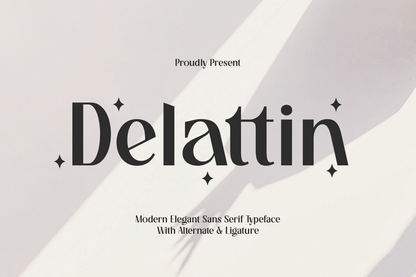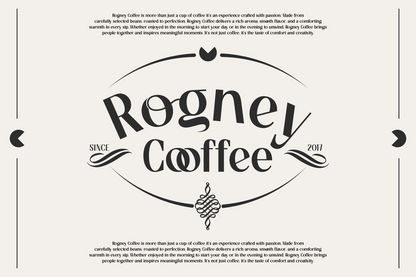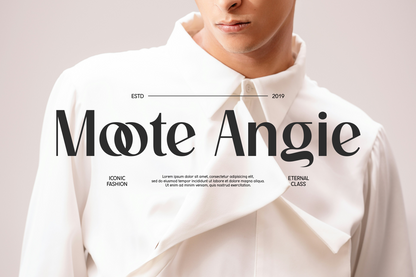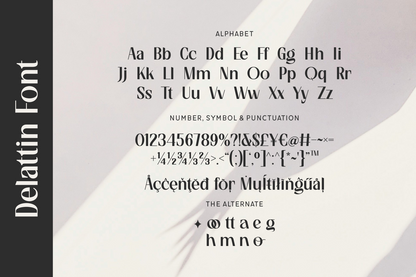
Delattin is a modern elegant sans serif typeface that exudes sophistication and charm. With graceful curves, stylish alternates, and refined ligatures, it's ideal for luxury branding, editorial design, wedding invitations, and high-end packaging.